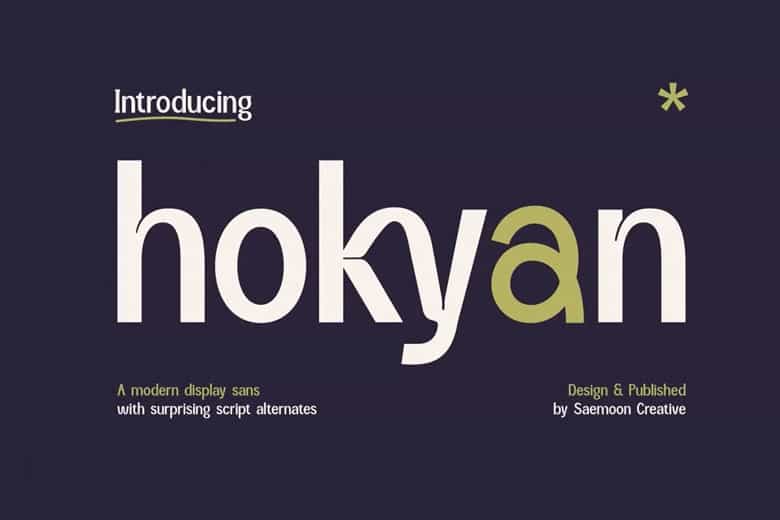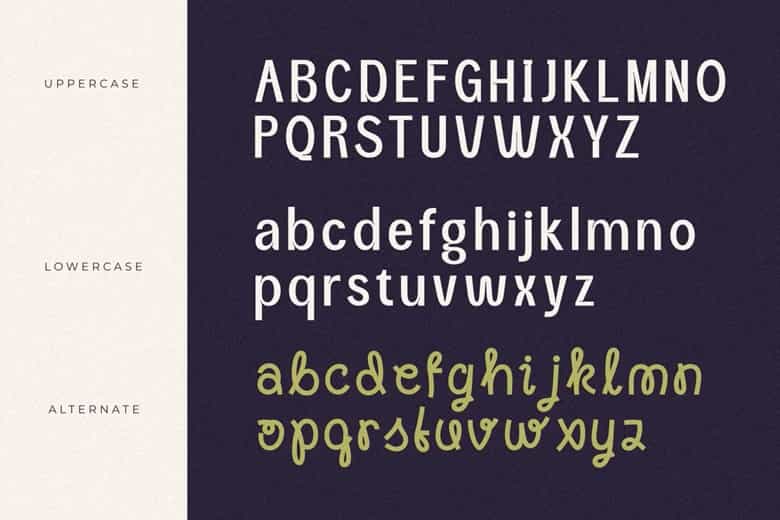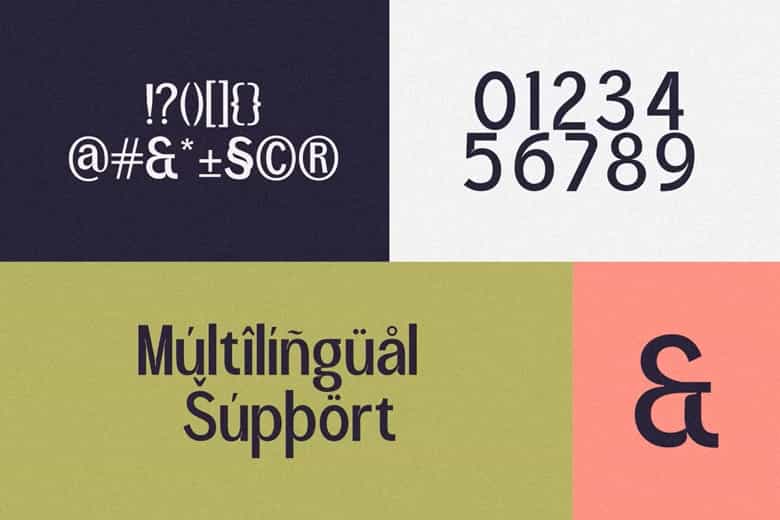
Hokyan is a simple sans serif font with a clean and expressive display that has a gap of modern aesthetics combined with unexpected and script-style alterations. Hokyan will take your branding, editorial, and creative projects to the next level, but not over-the-top. Its distinct character is evident in its slight curves and alternate glyphs and thus well-suited to logos, packaging, posters and headlines that require a new, assured voice.